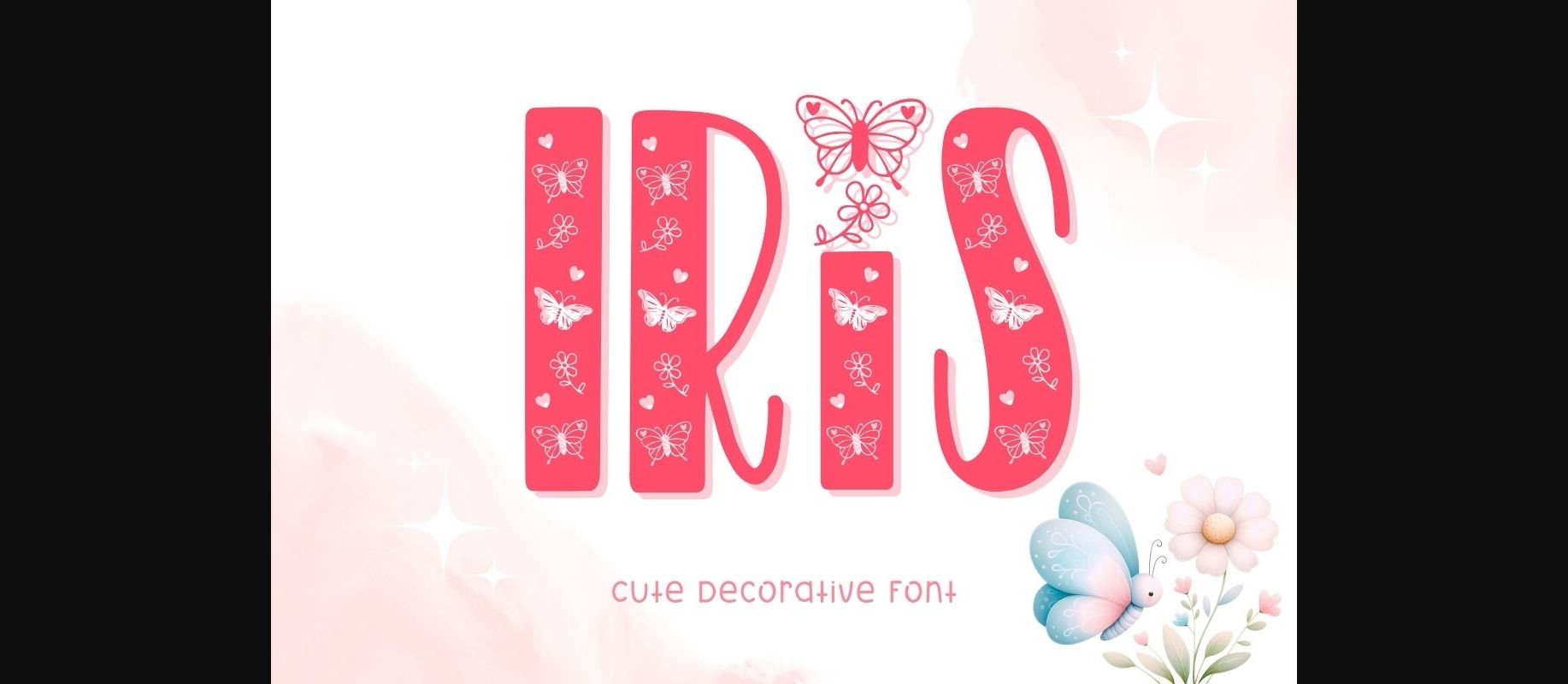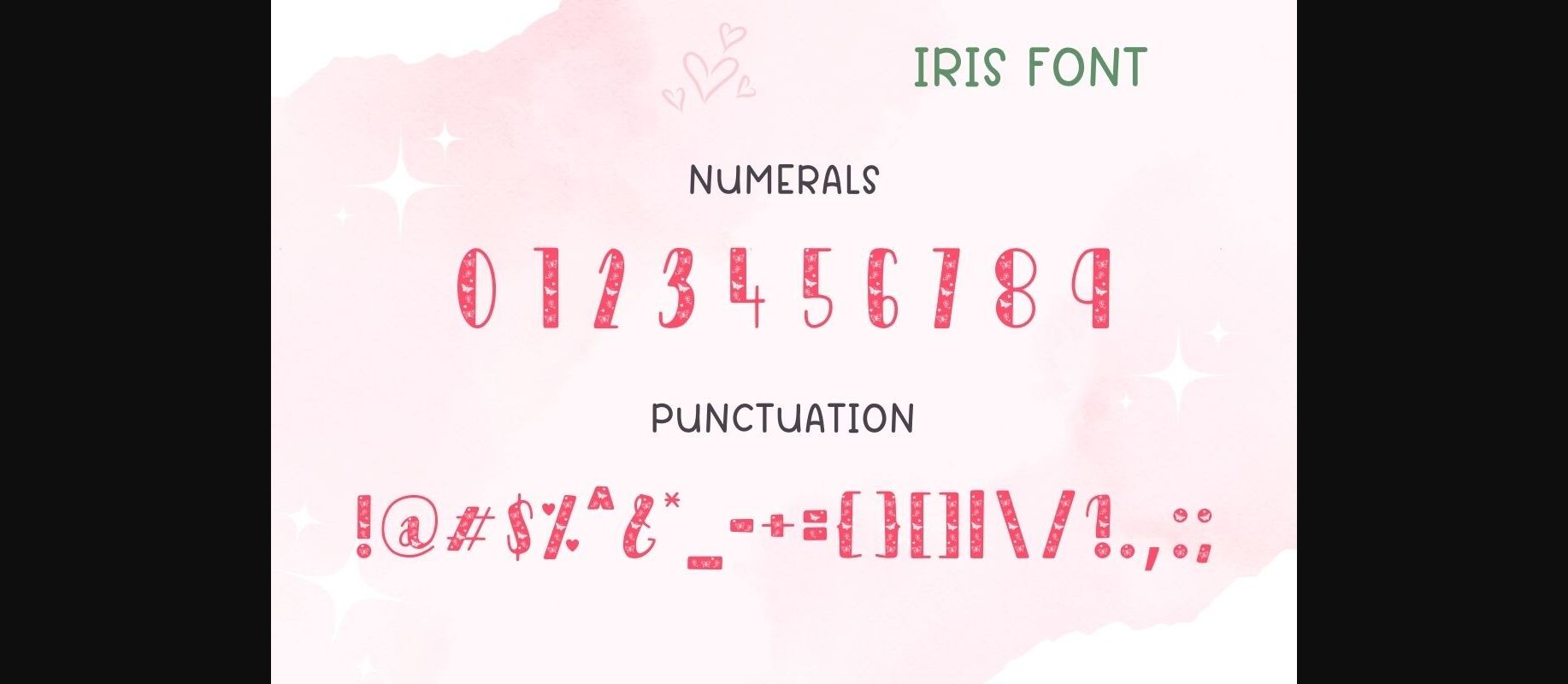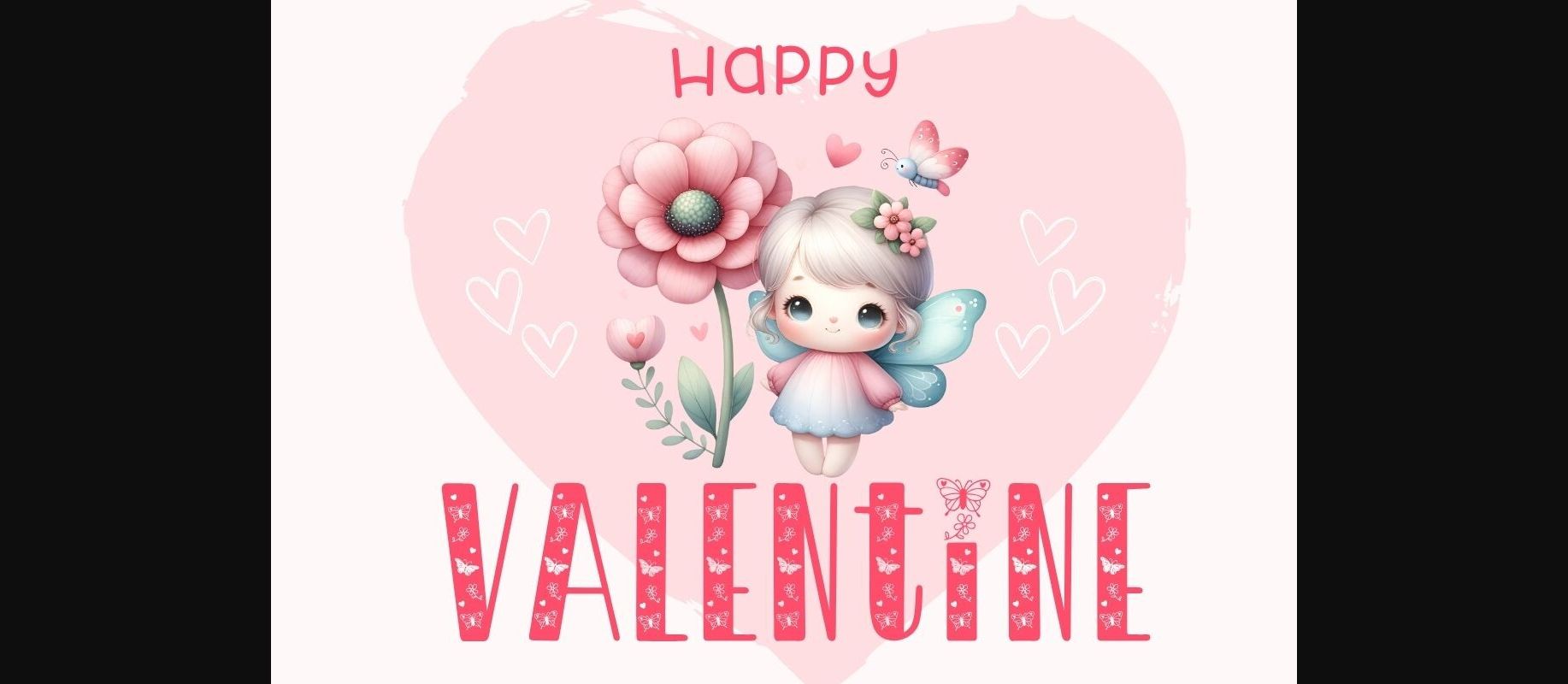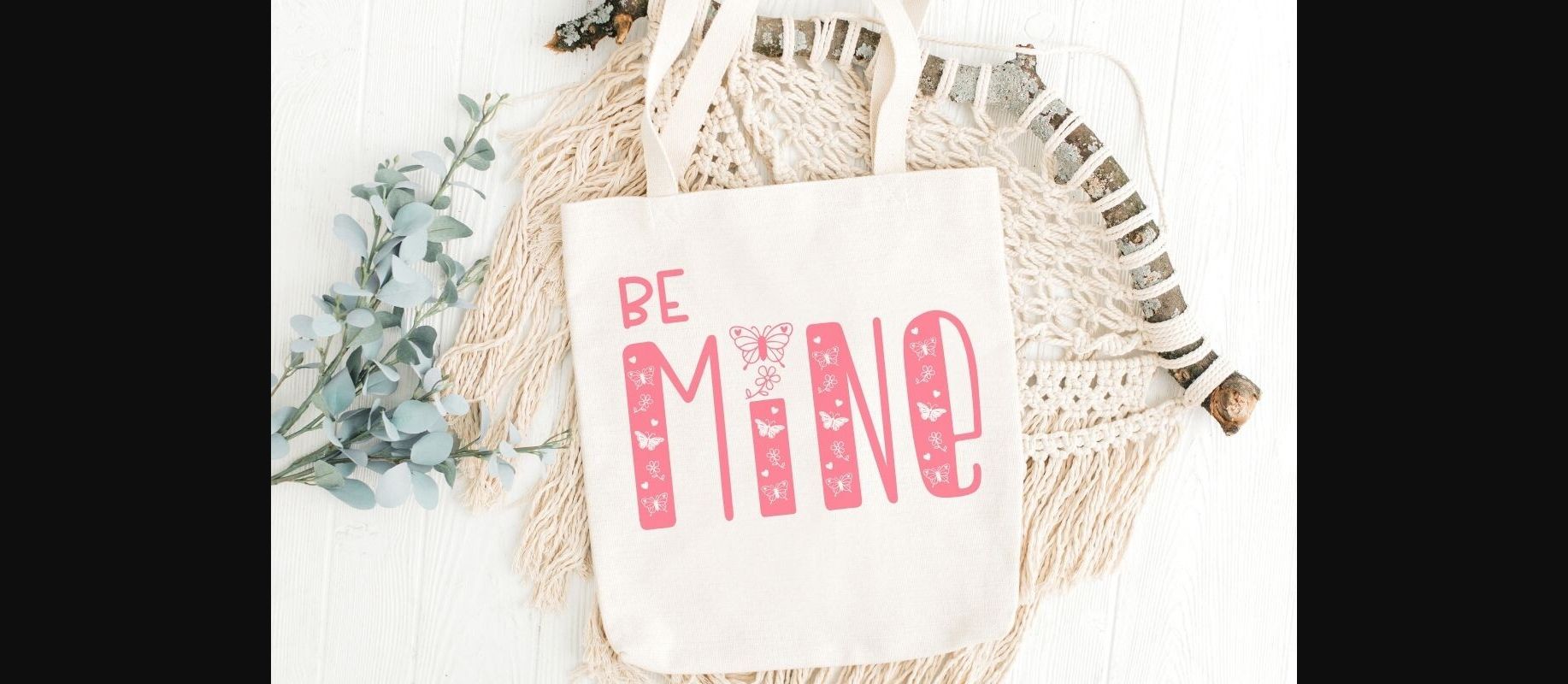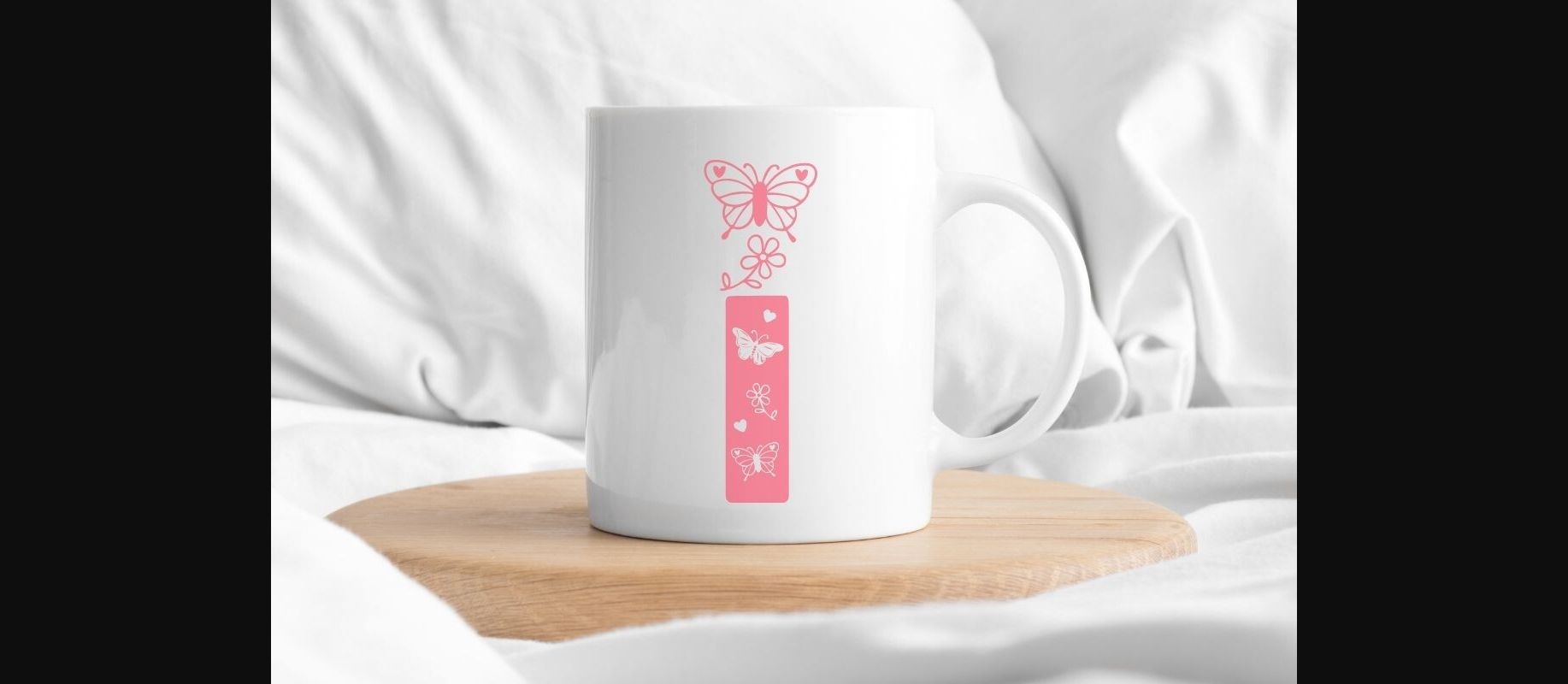
About Iris Font
Iris is a cute decorative font. This font uses cute butterfly and flower elements silhouettes combined with handwritten fonts. This font has a quirky style. Perfect for creating a wide variety of new designs to match products such as banners, content, mugs, cards, shirts, stationery, social media posts, and more!